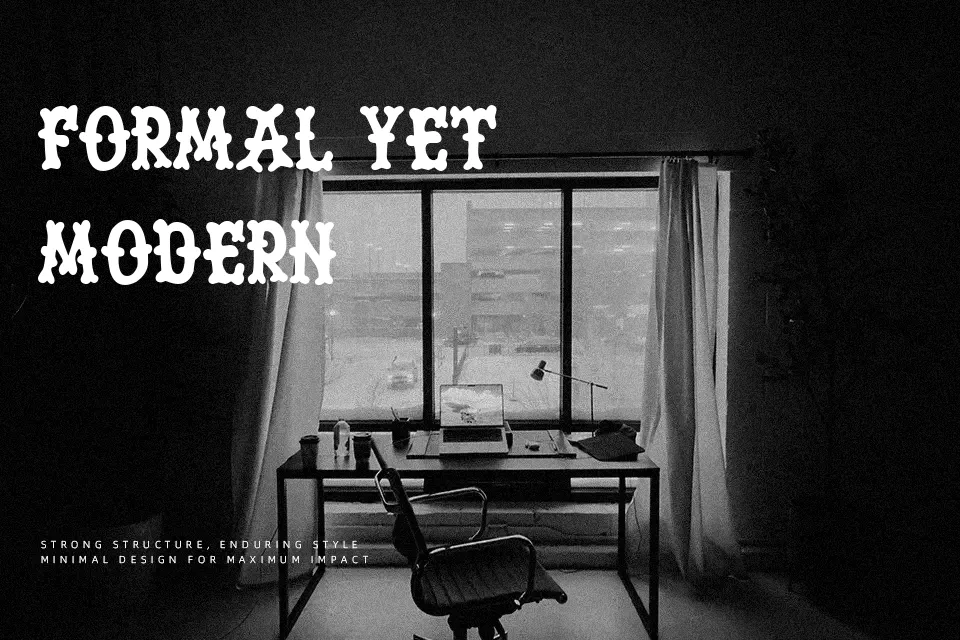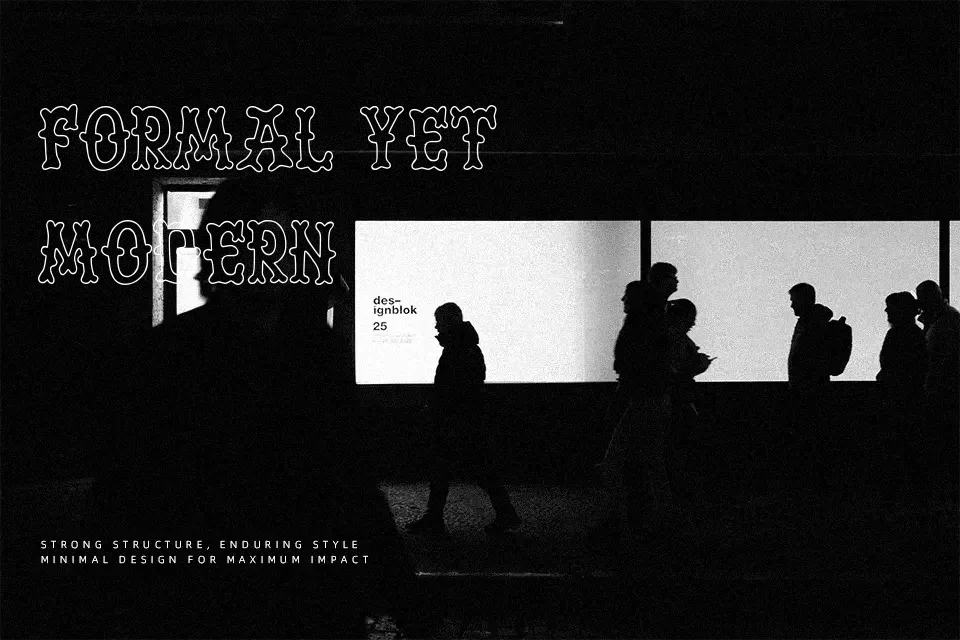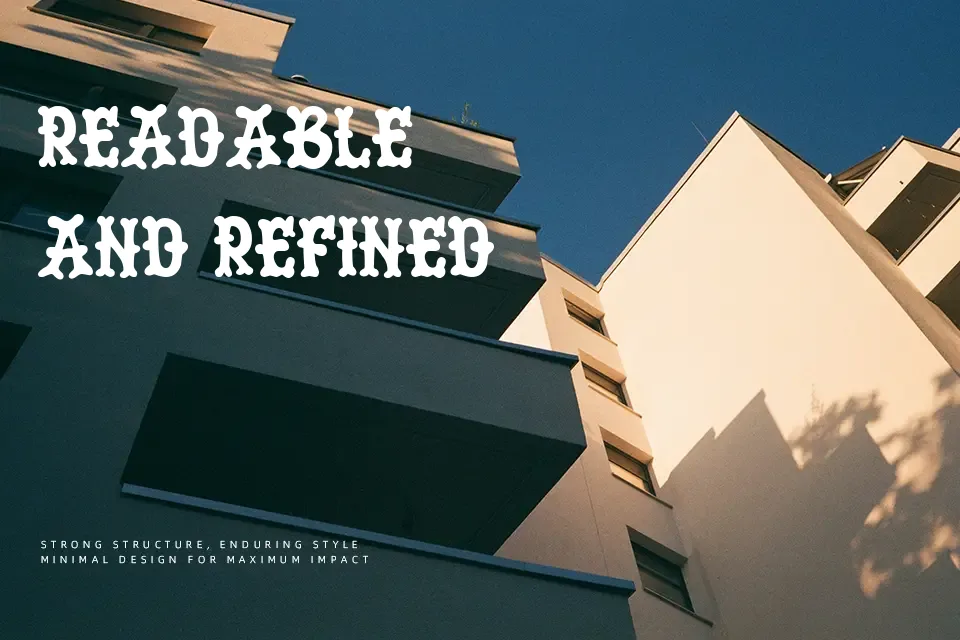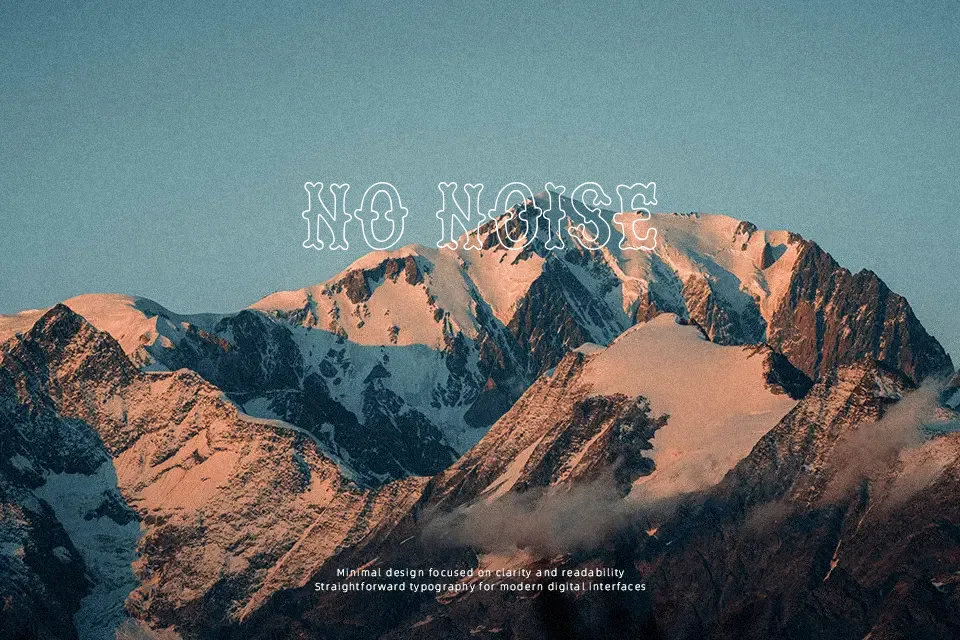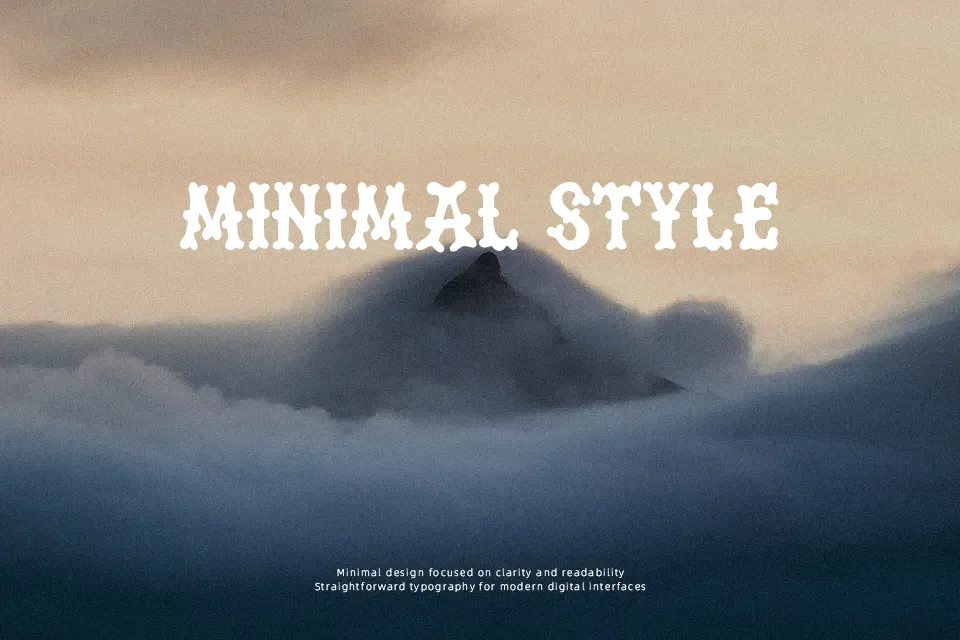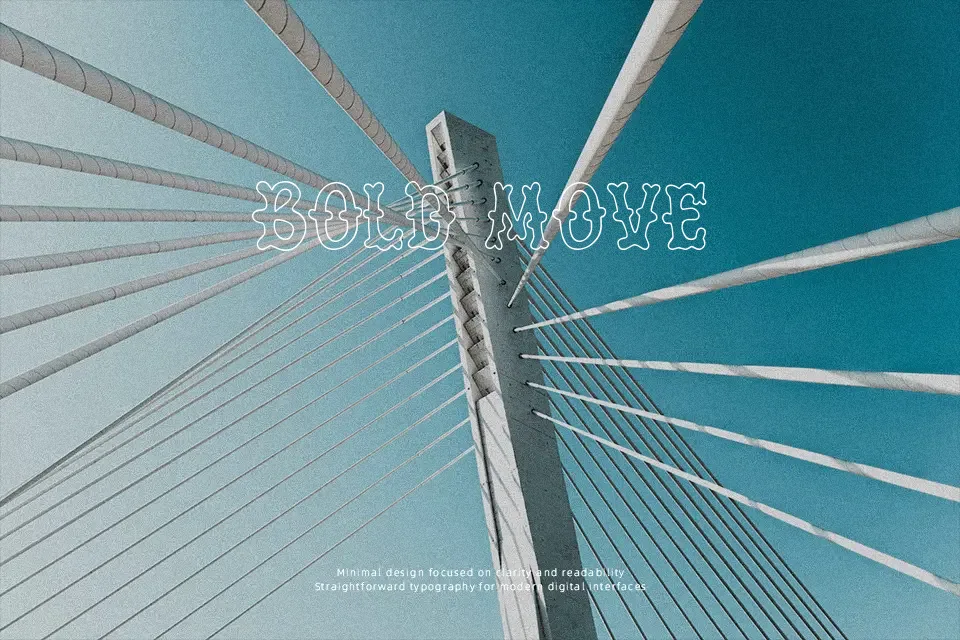
Pirate Biker Font
Pirate Biker Font works best as a decorative display face where a short title needs more character than a neutral type style. The letterforms have a stylized, high-impact appearance that gives headlines and graphic compositions a rugged tone. Spacing should be handled carefully in larger words so the individual shapes remain easy to identify. It is a practical choice for poster titles, apparel graphics, and themed logo concepts where visual attitude matters more than continuous reading comfort. The design is less effective in small sizes, where its decorative structure can make captions and detailed information harder to scan.
Best For: motorcycle event posters,apparel graphics,custom badge logos,themed social media headlines
Perfect for branding, fashion, and headline, with a bold and decorative style.